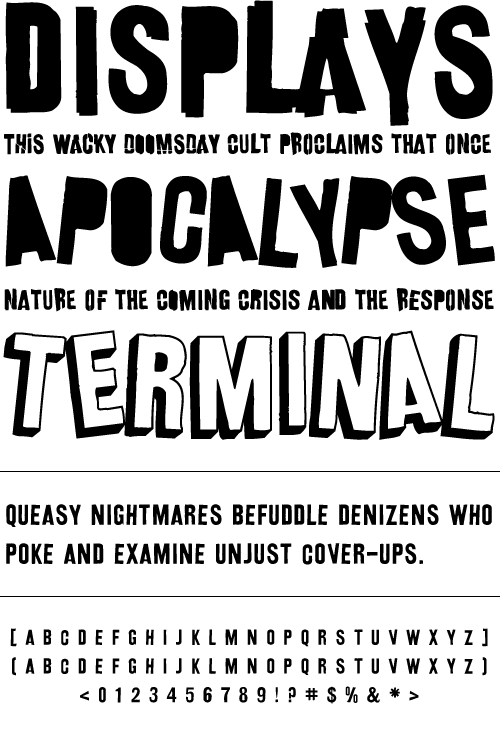
Bulletin
A gritty and powerful all-caps face. Four styles are included so you can mix and match letters to create unique designs.
Year Designed:
1997
Weights:
Regular, Cutout, Grunge, Shadow